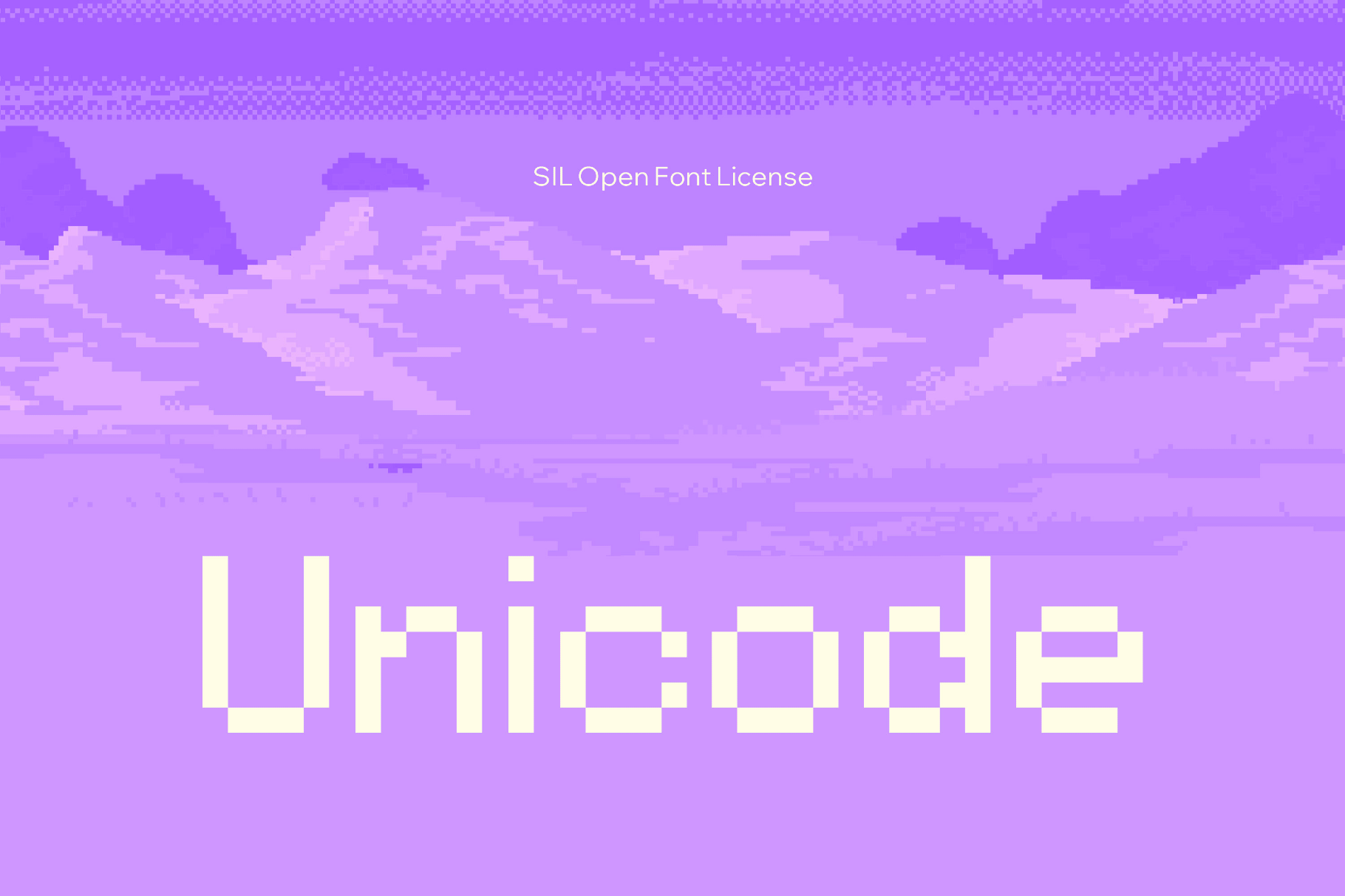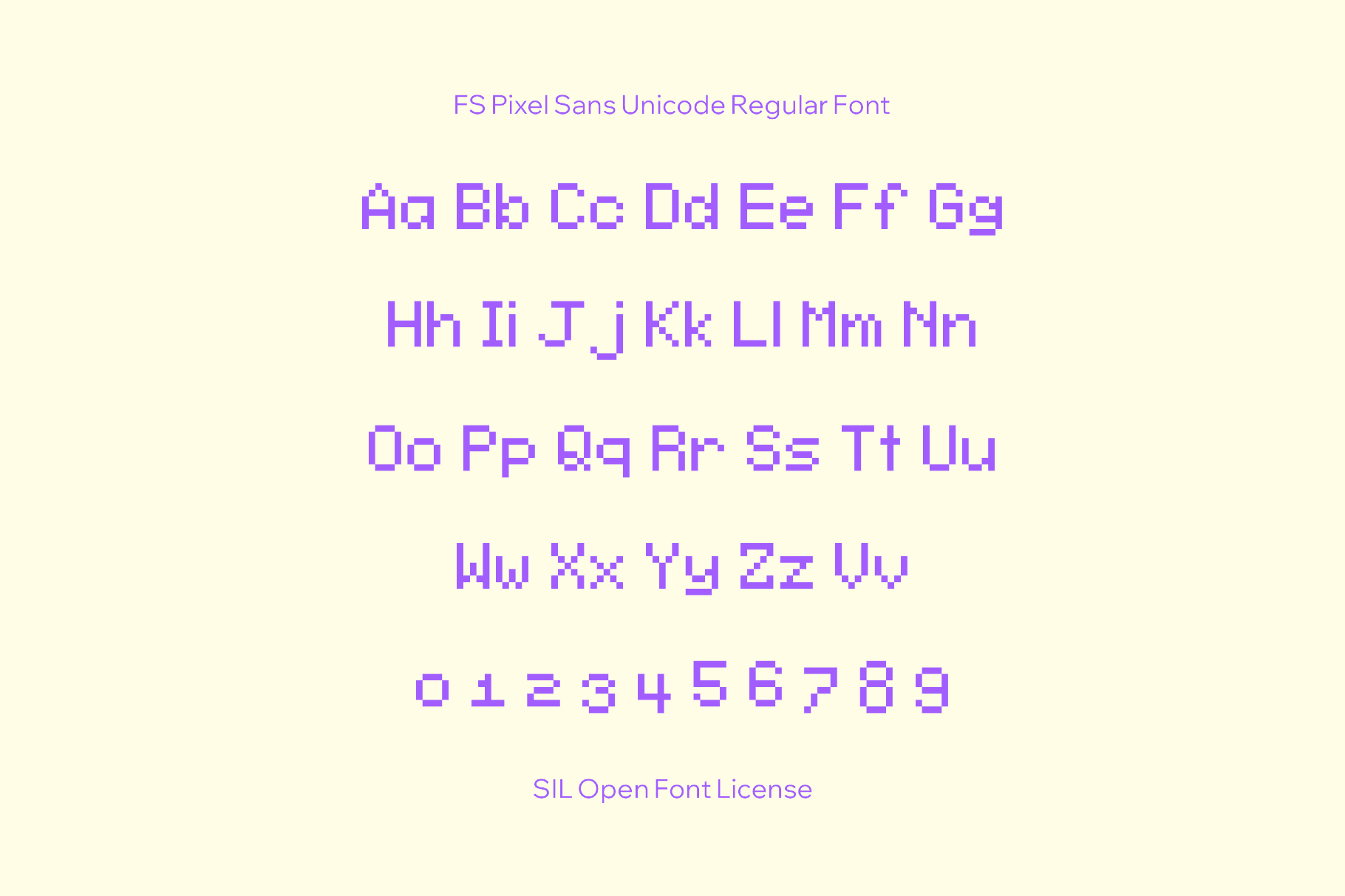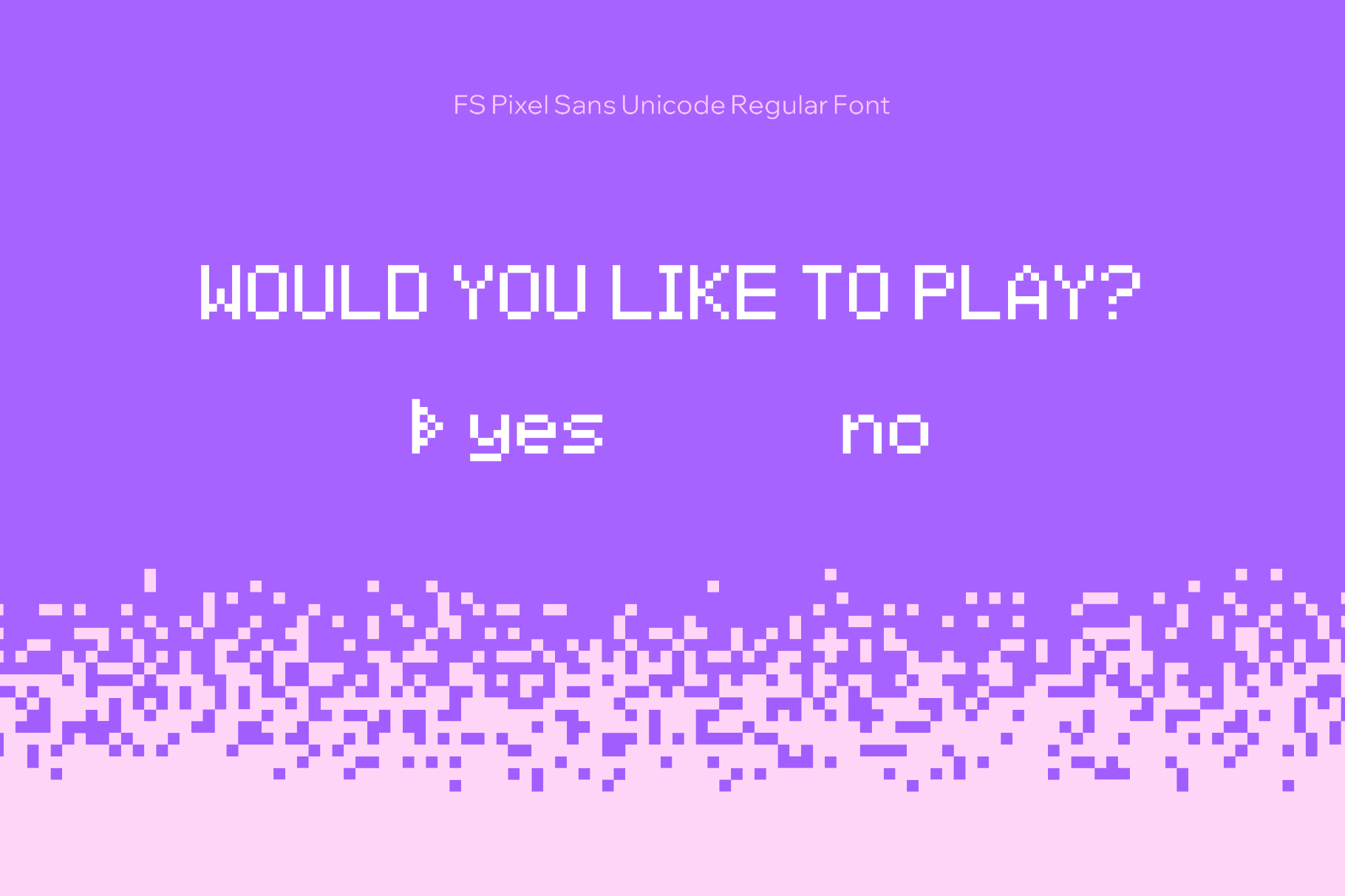
FS Pixel is a clean bitmap workhorse built for screens first. Square outlines, even strokes, and spacing ensure the text is sharp and readable at small sizes. The pixel grid gives it a dry, digital character of the early GUIs and handheld consoles.
The font is suitable for game menus, terminal-style UIs, dashboards, and web projects. It also fits instructional graphics, captions in retro-tech editorials, schematic diagrams, stickers and enamel pins with low-res charm, tech zines and captioning, museum interactives, and emulator skins.
- Uppercase and lowercase letters, numbers, punctuation, symbols, international characters, extended mathematical symbols and metrics, plus extra symbols.
- Multilingual support across extended Latin, extended Cyrillic, extended Arabic, Hebrew, and Greek scripts, with additional custom ranges such as Shidinn and Noahiese.